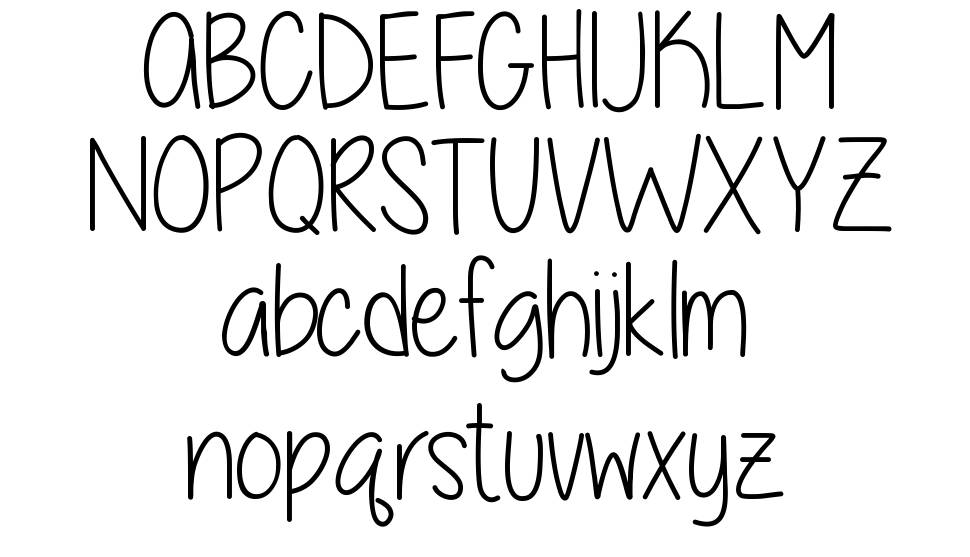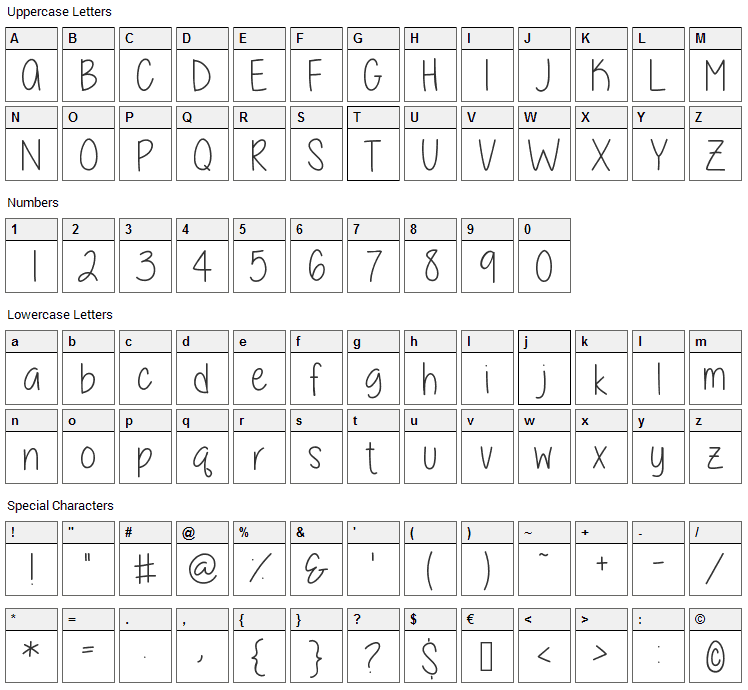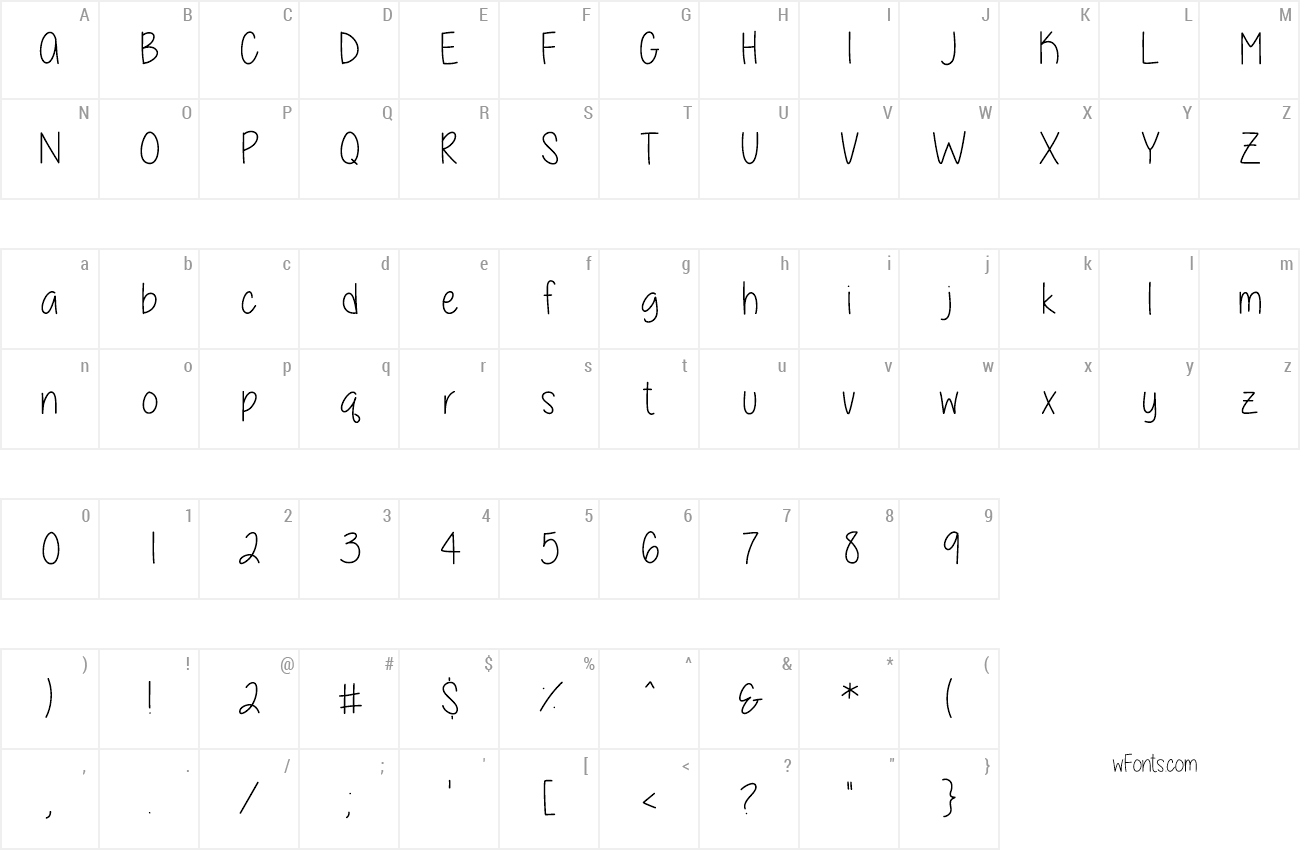
A Little Sunshine Font
A Little Sunshine Font - A little sunshine à € by vanessa bays. Downloaded 3,231,640 times for free or donate to. Web a custom font by vanessa bays in script > handwritten category.
A Little Sunshine À € By Vanessa Bays.